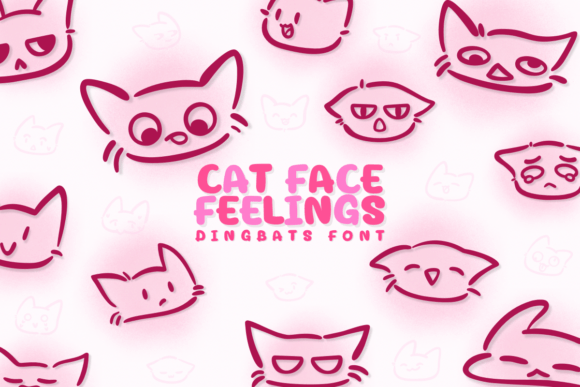
Designing with Joy: Discover the Purr-fect Font for Your Next Project
You know that moment when a spark of creativity strikes, and you just can’t wait to bring your idea to life? For many of us, that moment comes when we’re brainstorming new designs, and the right font can make all the difference. Whether you’re a seasoned designer or just starting out, the right font can set the tone for your entire project.
That’s where Cat Face Feelings Font comes in – a delightful dingbats font that’s sure to bring a smile to your face. With its adorable cat faces and emotive expressions, this font is perfect for adding a touch of whimsy to your creative projects. And for designers, it’s a valuable addition to their toolkit, offering endless possibilities for expressing feelings and emotions in a fun and engaging way.
Cat Face Feelings Font Key Features
- Unique Character Set: The Cat Face Feelings Font includes a set of emotive cat faces with various expressions, allowing users to convey a range of emotions in their designs.
- Support for Multiple Languages: The font supports a wide range of languages, including Latin, Cyrillic, and Greek alphabets, making it a versatile choice for international designs.
- Customization and Editing: The font is fully editable, allowing designers to customize and modify the cat faces to suit their specific needs.
Designer Review: Cat Face Feelings Font
Overall, I’d say the Cat Face Feelings Font is a fun, playful addition to any designer’s toolkit. Here’s what works well:
- ✨ The font is incredibly expressive, conveying a wide range of emotions through its cat face characters.
- ✨ The font is highly customizable, allowing designers to easily swap out different facial expressions and emotions.
- ✨ The cat face characters are designed to be easy to read, even in smaller font sizes.
- ⚠️ The font may not be suitable for all types of design projects, particularly those requiring a more serious or professional tone.
- ⚠️ The font can be a bit overwhelming in larger font sizes or when used extensively throughout a design.
- ⚠️ Some users may find the font’s cat face characters to be a bit too cute or childish.
Overall, I’d say the Cat Face Feelings Font is a great choice for designers looking to add a lighthearted, playful touch to their projects. Just be mindful of the potential limitations and use it thoughtfully to get the best results.
Tips for Getting the Most Out of the Cat Face Feelings Font
Use the Cat Face Feelings Font to add a playful touch to your designs.
Pair it with other fonts to create a unique and eye-catching combination.
Experiment with different colors and sizes to create a custom look.
The Cat Face Feelings Font is perfect for:
Designing social media posts and graphics.
Creating invitations and party decorations.
Adding a playful touch to blog posts and articles.